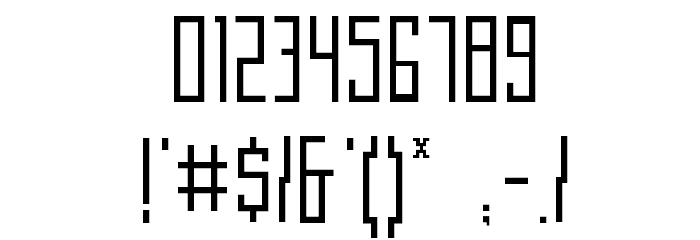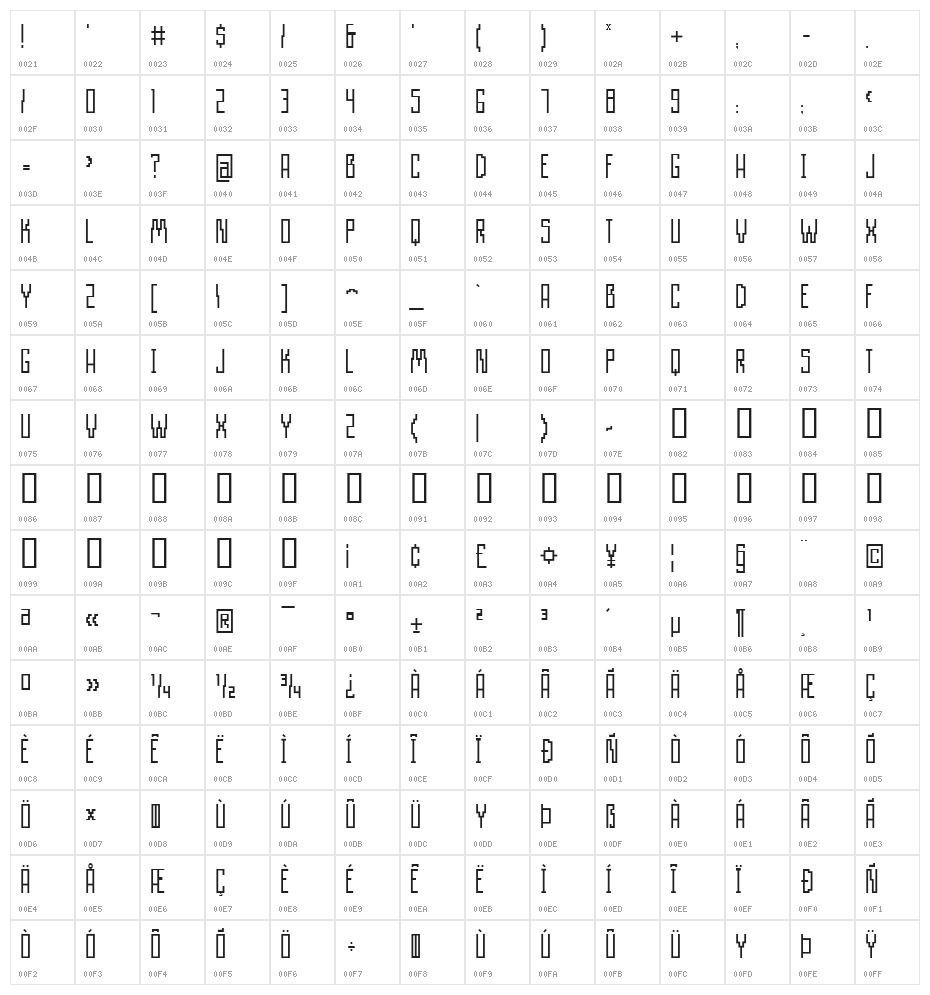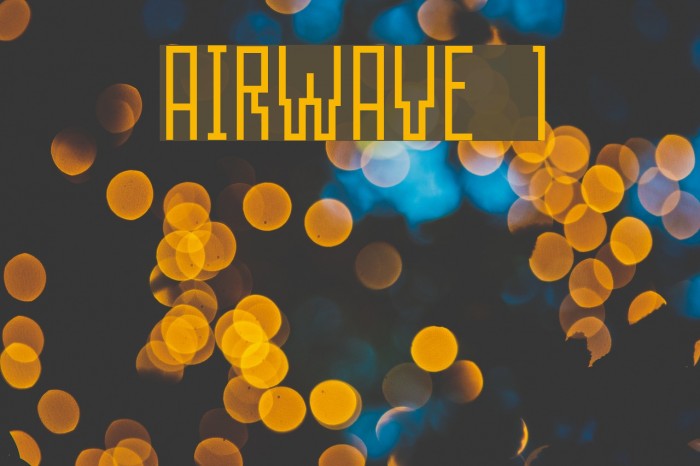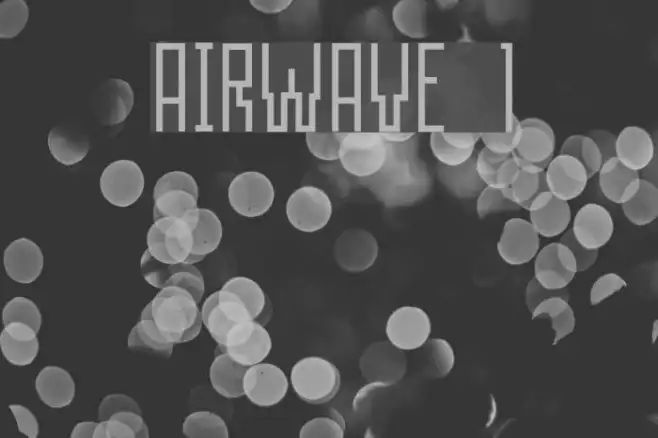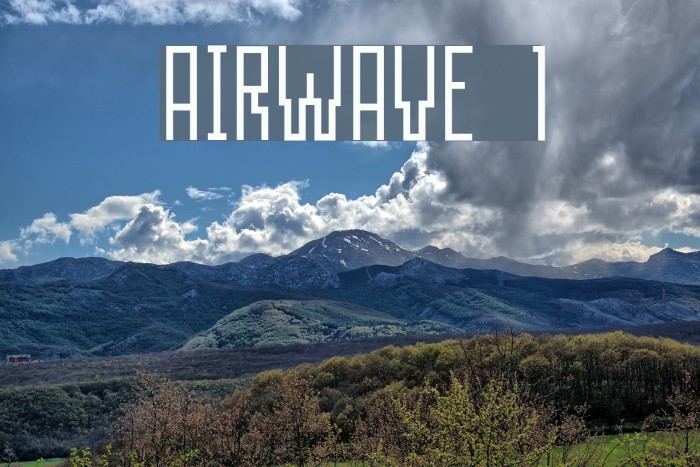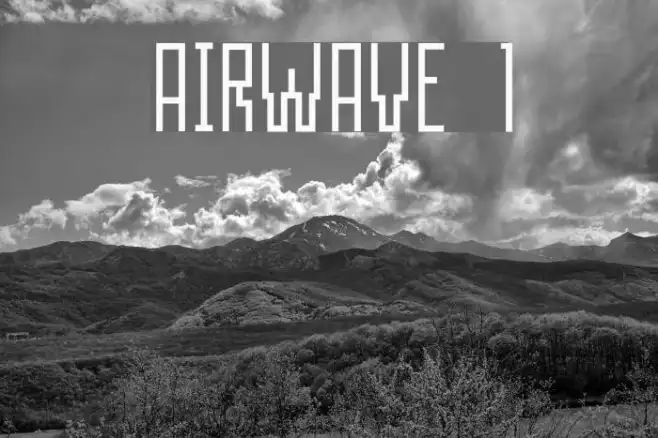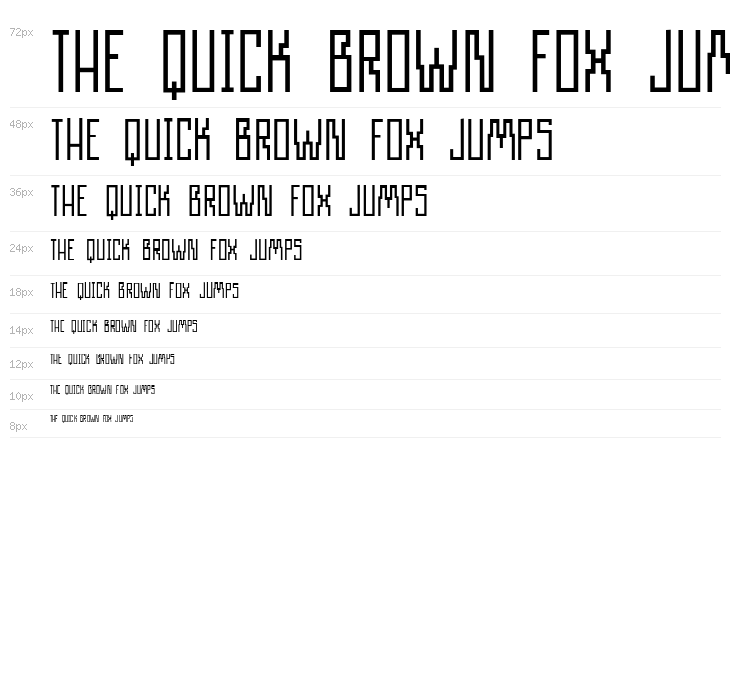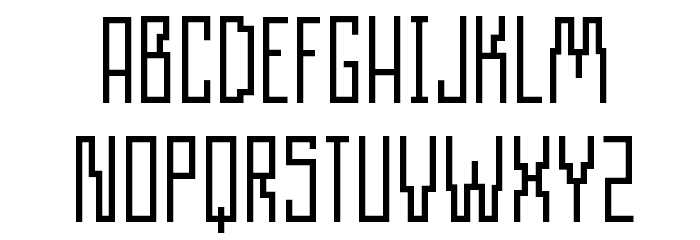
AIRWAVE 1 Font
AIRWAVE 1 Description
This font features a geometric, monospaced design with a distinctly digital aesthetic. Each character is constructed with straight lines and sharp angles, giving it a modern, tech-inspired look. The uniformity in width across all characters enhances its structured appearance, making it ideal for digital displays or futuristic themes. The uppercase and lowercase letters maintain a consistent height, while the numerals and special characters are designed to match the overall style. This font's clean and precise lines make it highly legible, even at smaller sizes.
| Use Case | Headlines, Digital displays, Tech branding |
| Proposed Projects | Ideal for digital displays, tech branding, coding interfaces, and futuristic design projects. |